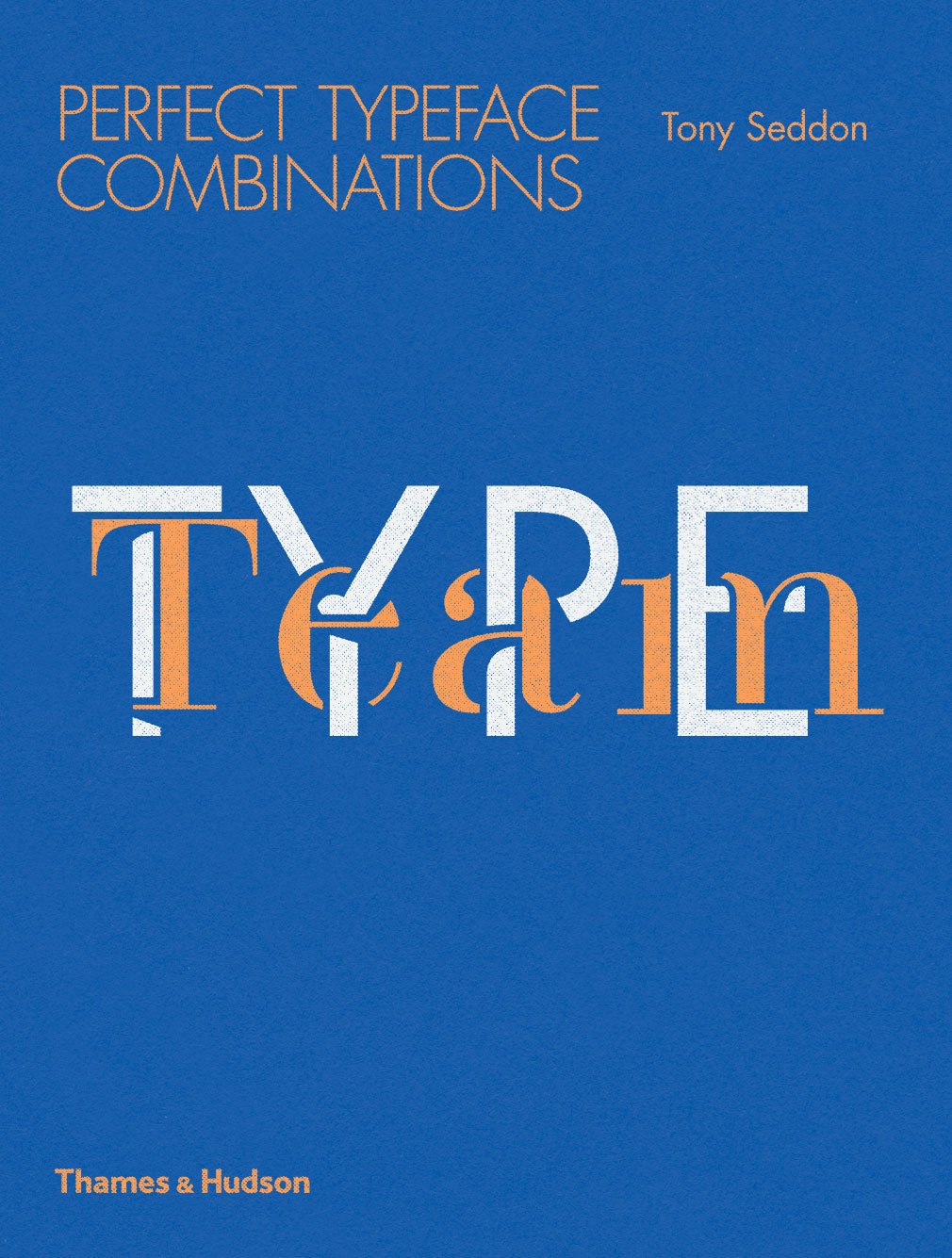
Type Team: Perfect Typeface Combinations
The ultimate guide for typographers or anyone wishing to combine individual typefaces for any creative project
Typeface combinations don’t always work together naturally. For an experienced designer, the process becomes largely intuitive, but even seasoned professionals sometimes struggle to come up with the perfect pairing.
Developed with typographers, graphic designers and font geeks in mind, Type Team gets to grips with the best techniques for combining typefaces from all classifications and styles for any project.
Almost 150 typeface combinations are grouped into 25 contrasting categories, ranging from Classical and Scholarly to Edgy and Vibrant, and with a full page devoted to each entry. In addition, 50 typographic principles are discussed and illustrated using appropriate typefaces.
In this unique reference for font spotters, designers, and users, the perfect typeface combination for any creative project can always be found.